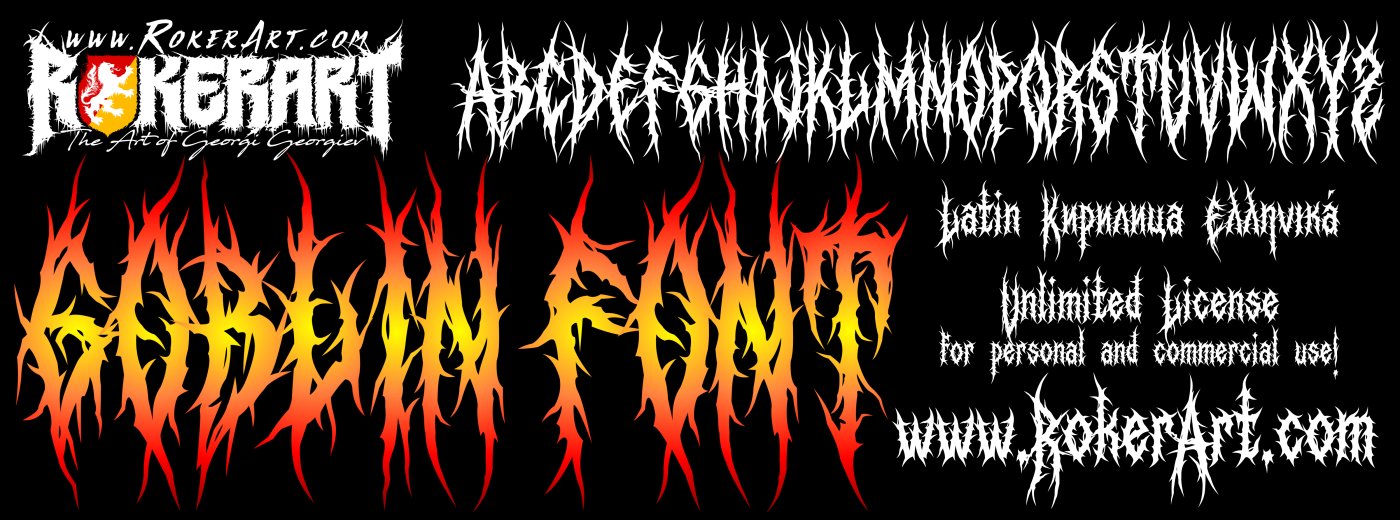
Goblin Font – Black Metal and Death Metal logo style typeface
RokerArt presents: Goblin Font!
There is a balance here between the look of hard-to-read black metal and death metal logos and the readability of a typical font. You can use the font to create your logo, inscriptions on merchandise, or online video and photo content captions! The font is rich in details, yet light enough and optimized for work. Make your logo in the style of black metal or death metal by simply writing the name, and you are done! This font is a good investment if you are into design because you will be able to use it many times now and in the future for a variety of purposes and projects.
The font contains all the necessary letters, numbers, symbols with the extended Latin alphabet, Cyrillic and Greek letters.